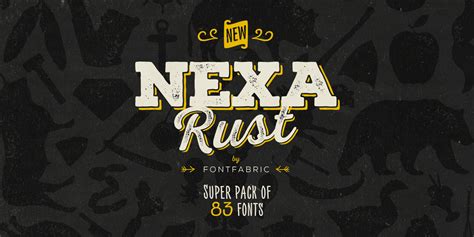
Nexa Rust Font
Nexa Rust Font - With its textured, rough edges and warm,. Nexa rust is a rough version.
With its textured, rough edges and warm,. Nexa rust is a rough version.
Nexa rust is a rough version. With its textured, rough edges and warm,.
Nexa Rust Slab Black 01 Font by Fontfabric Font Bros
With its textured, rough edges and warm,. Nexa rust is a rough version.
Nexa rust is a rough version. With its textured, rough edges and warm,.
With its textured, rough edges and warm,. Nexa rust is a rough version.
Nexa Rust Is A Rough Version.
With its textured, rough edges and warm,.